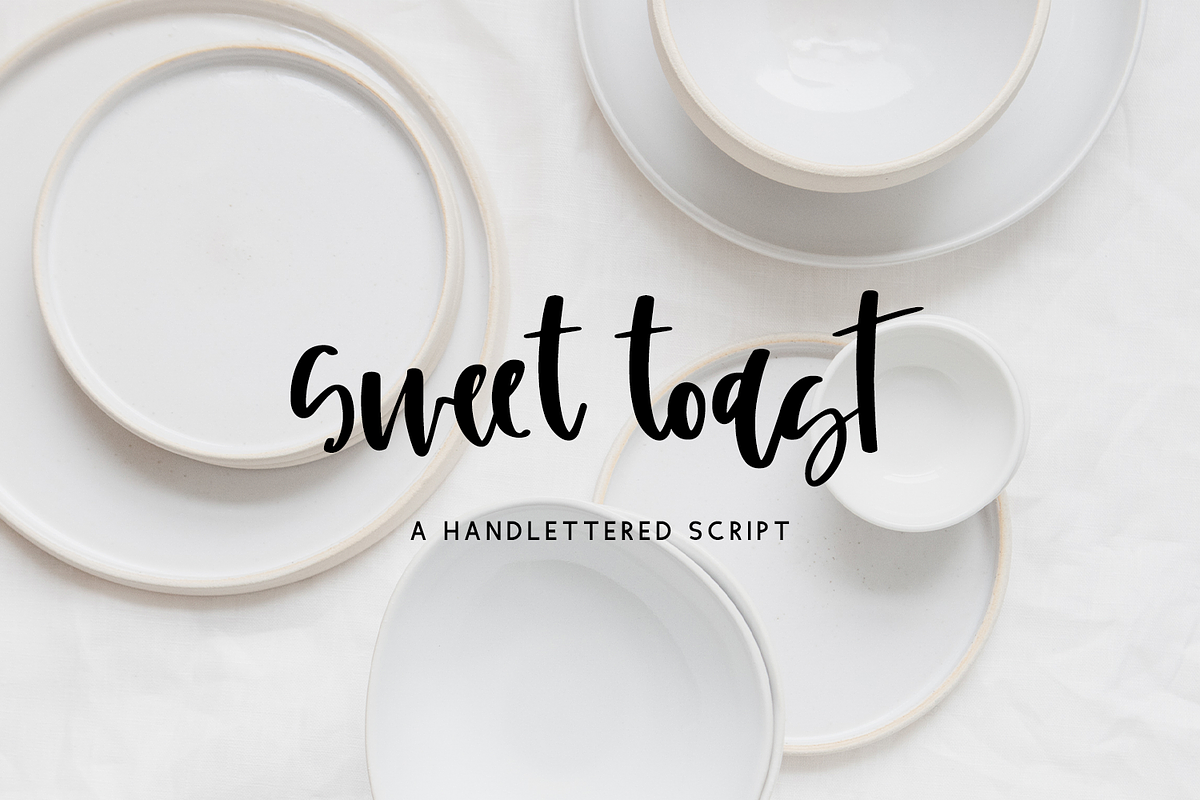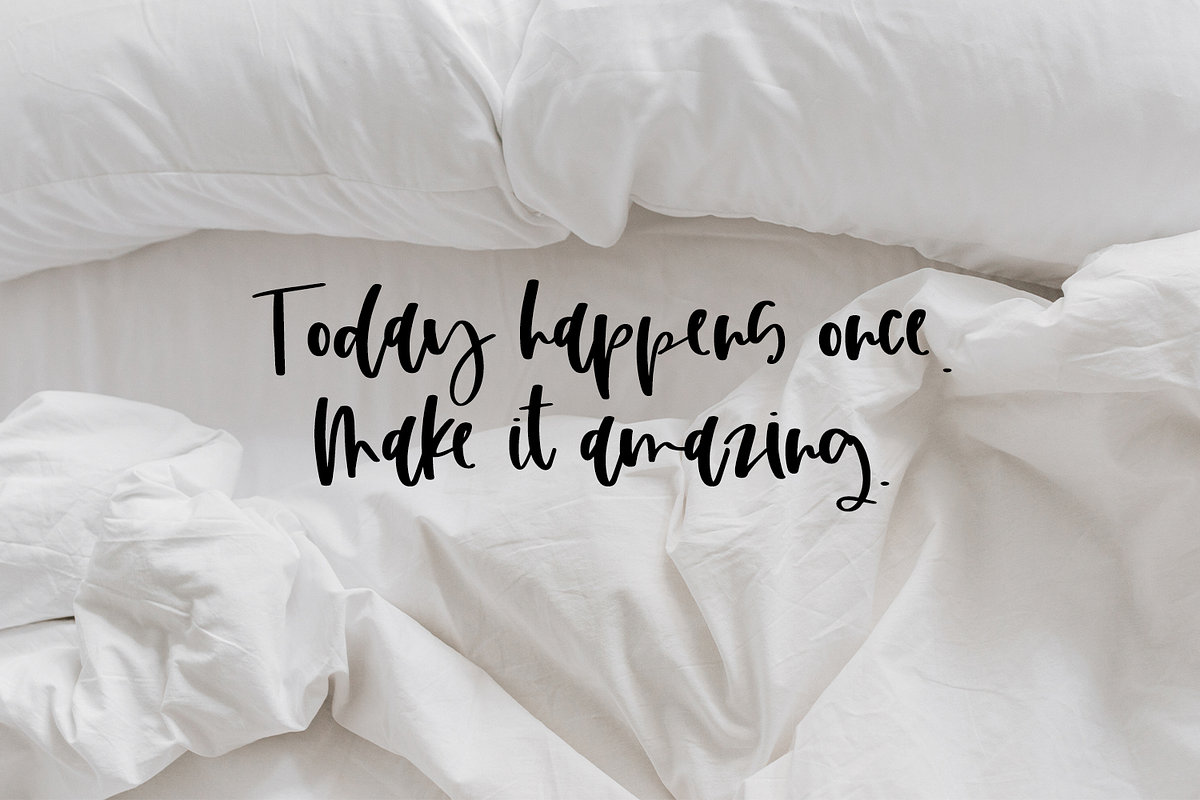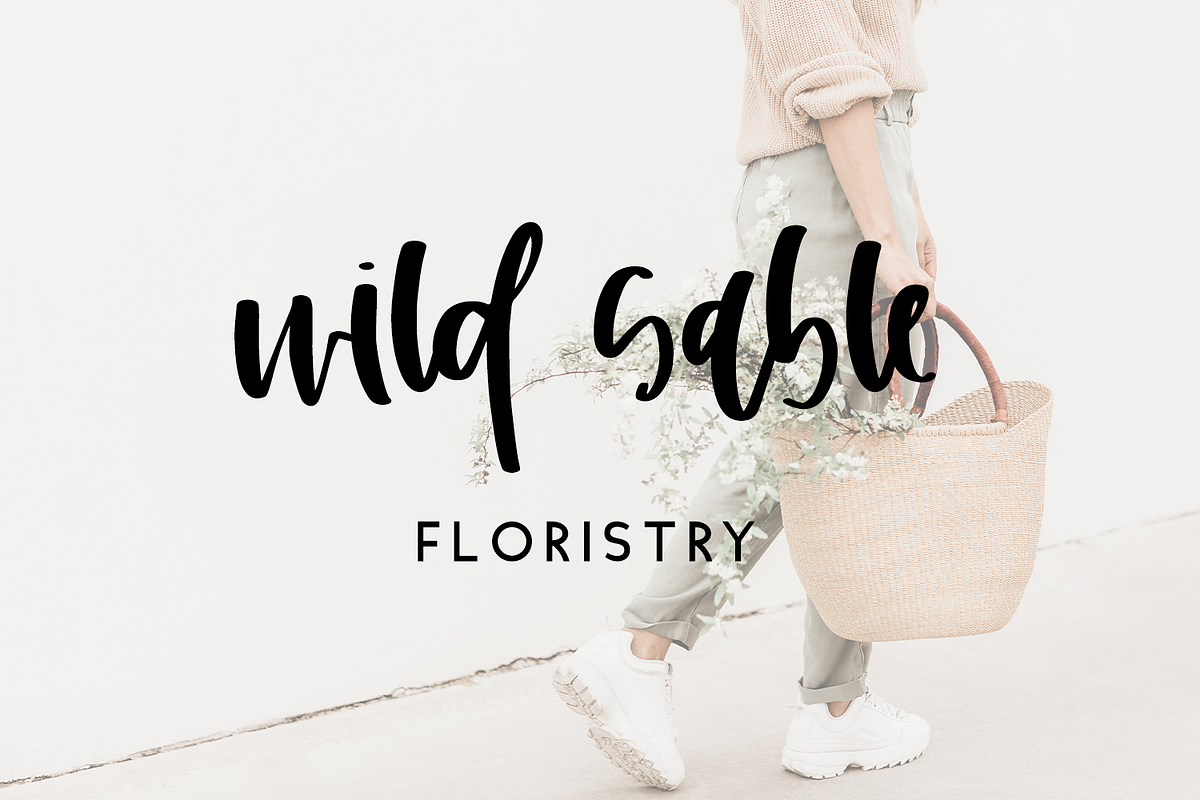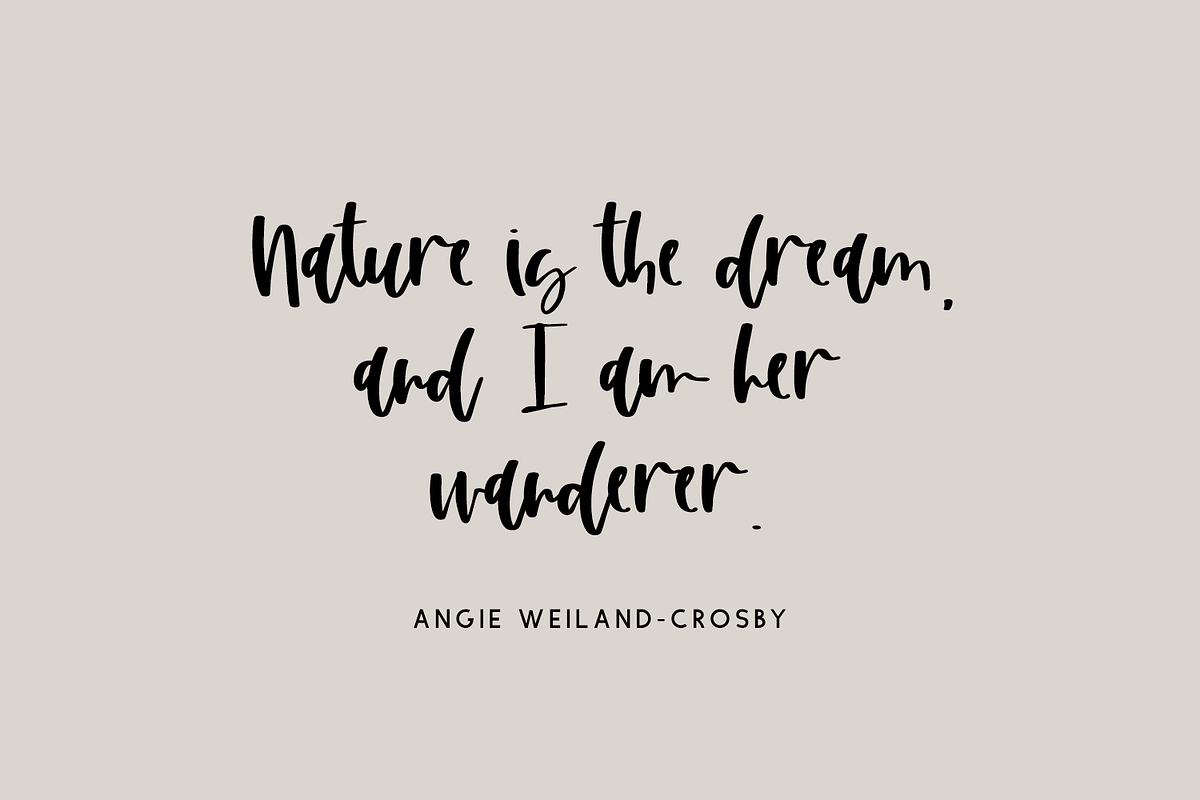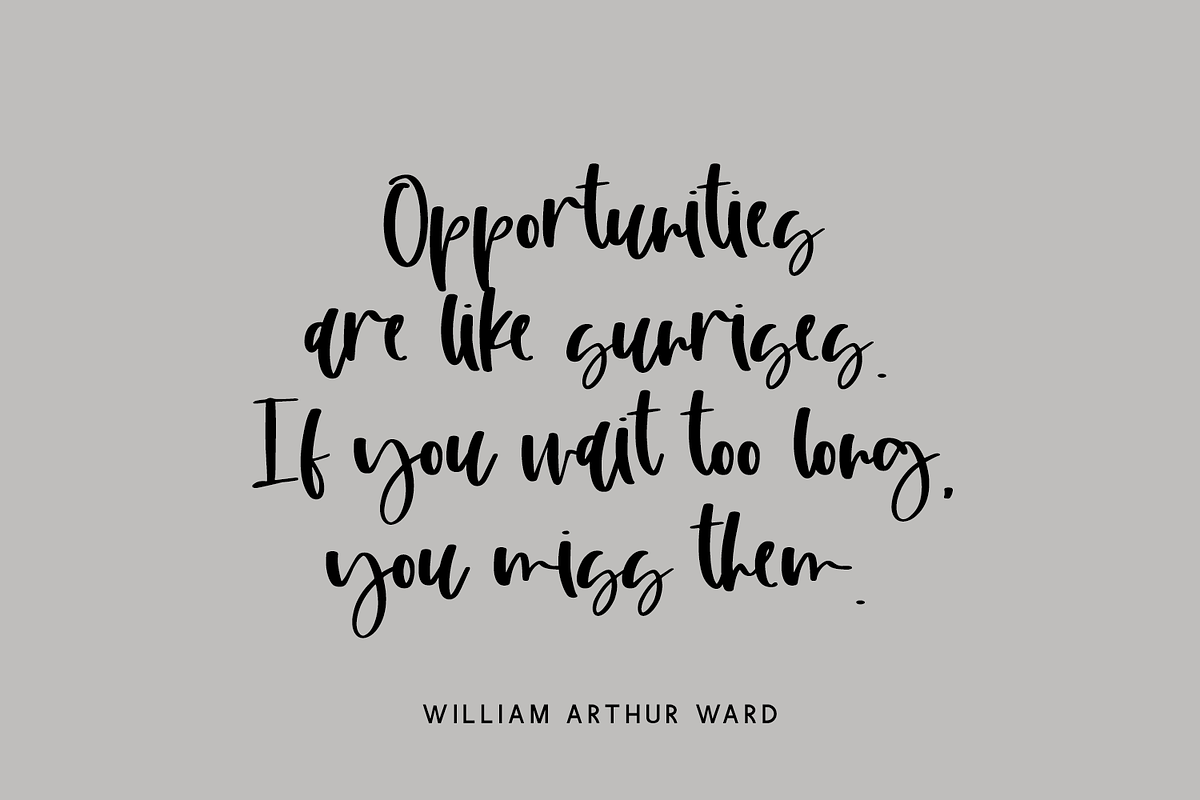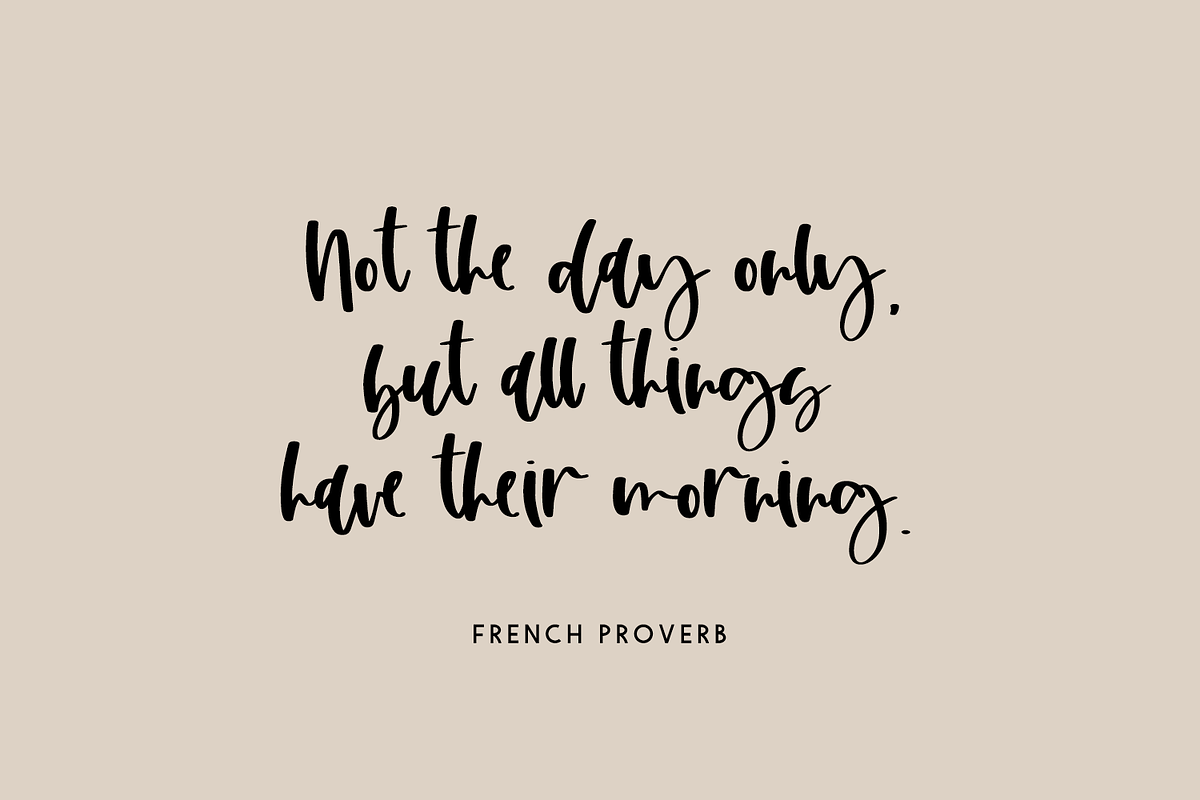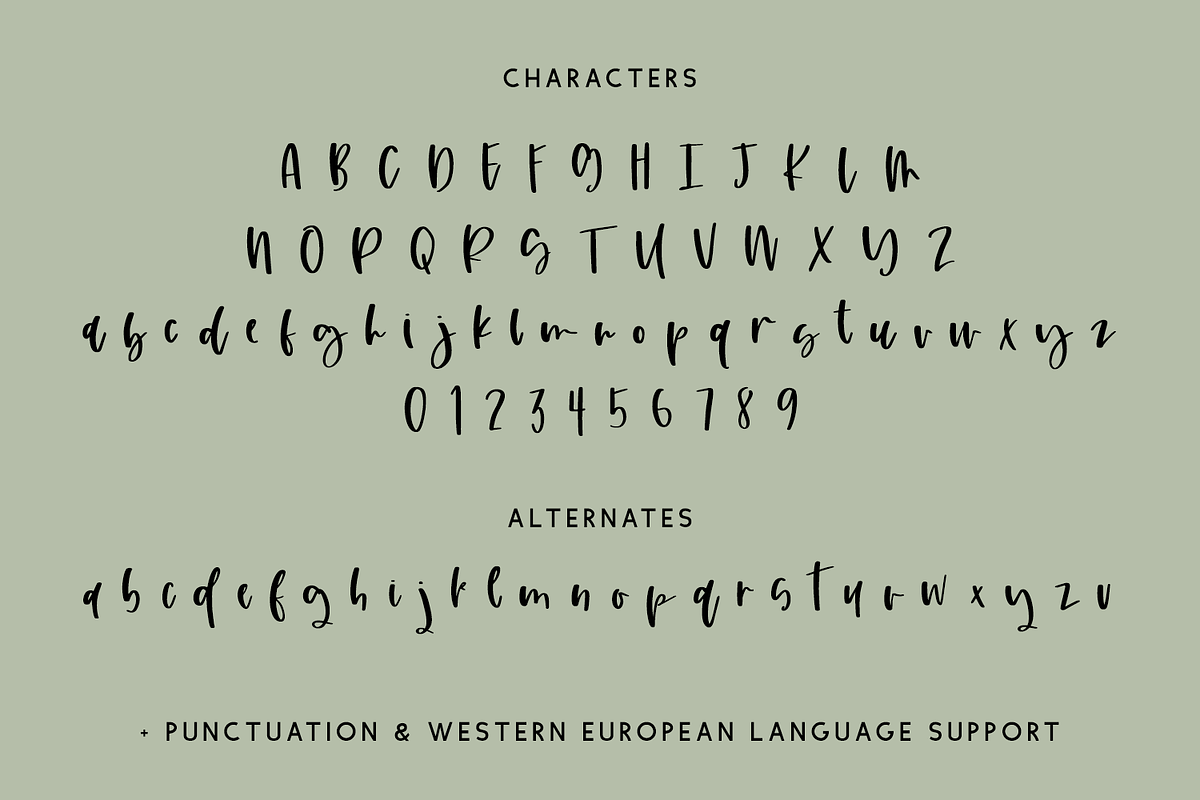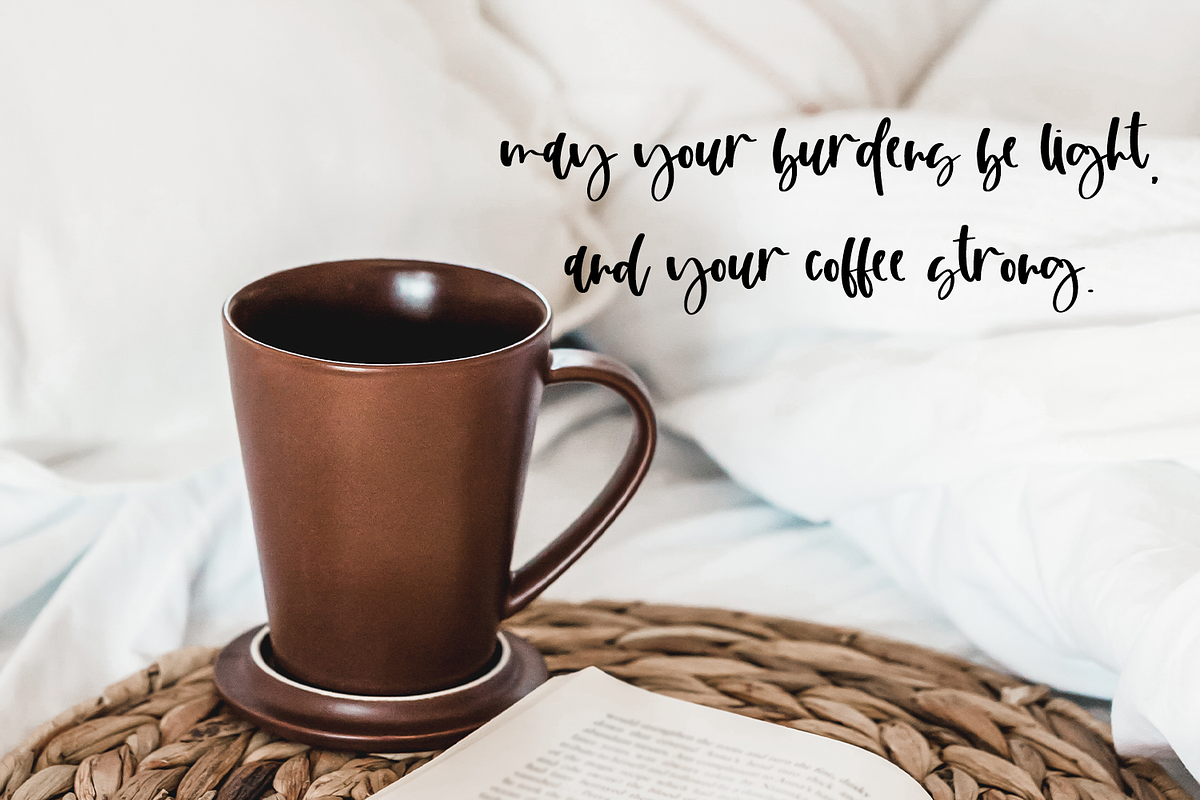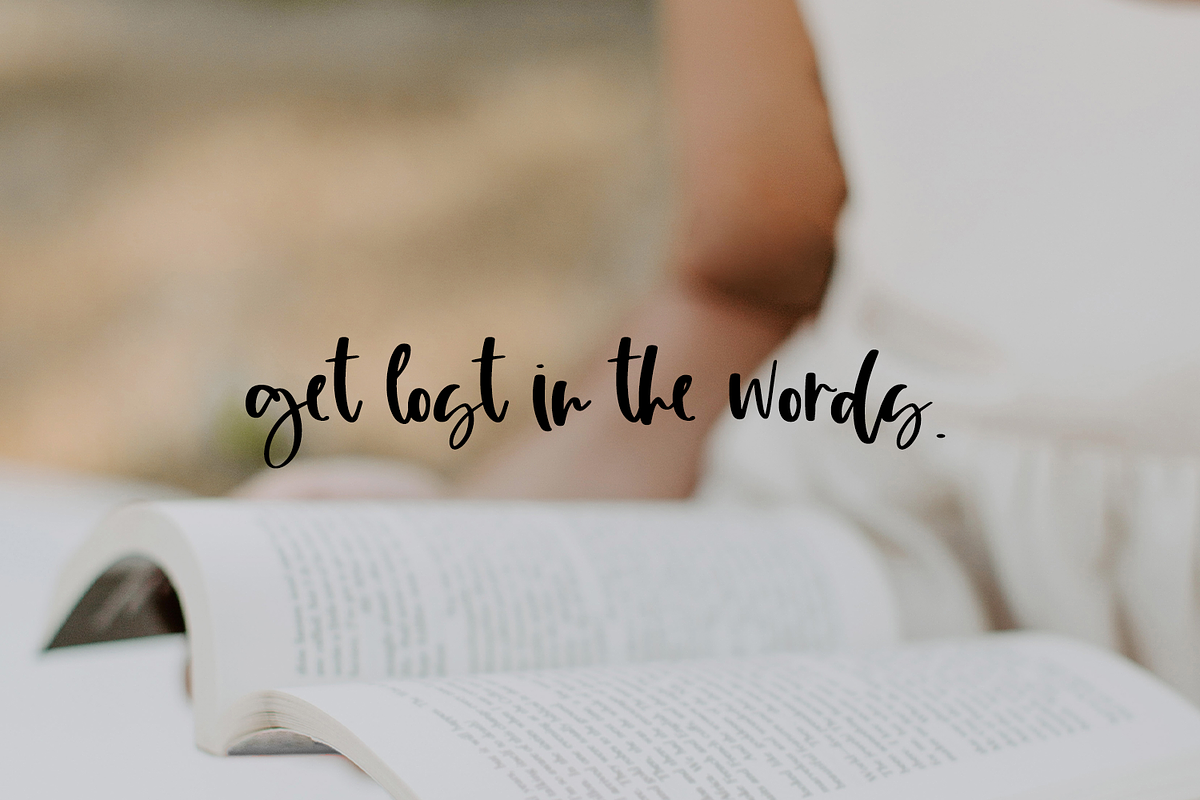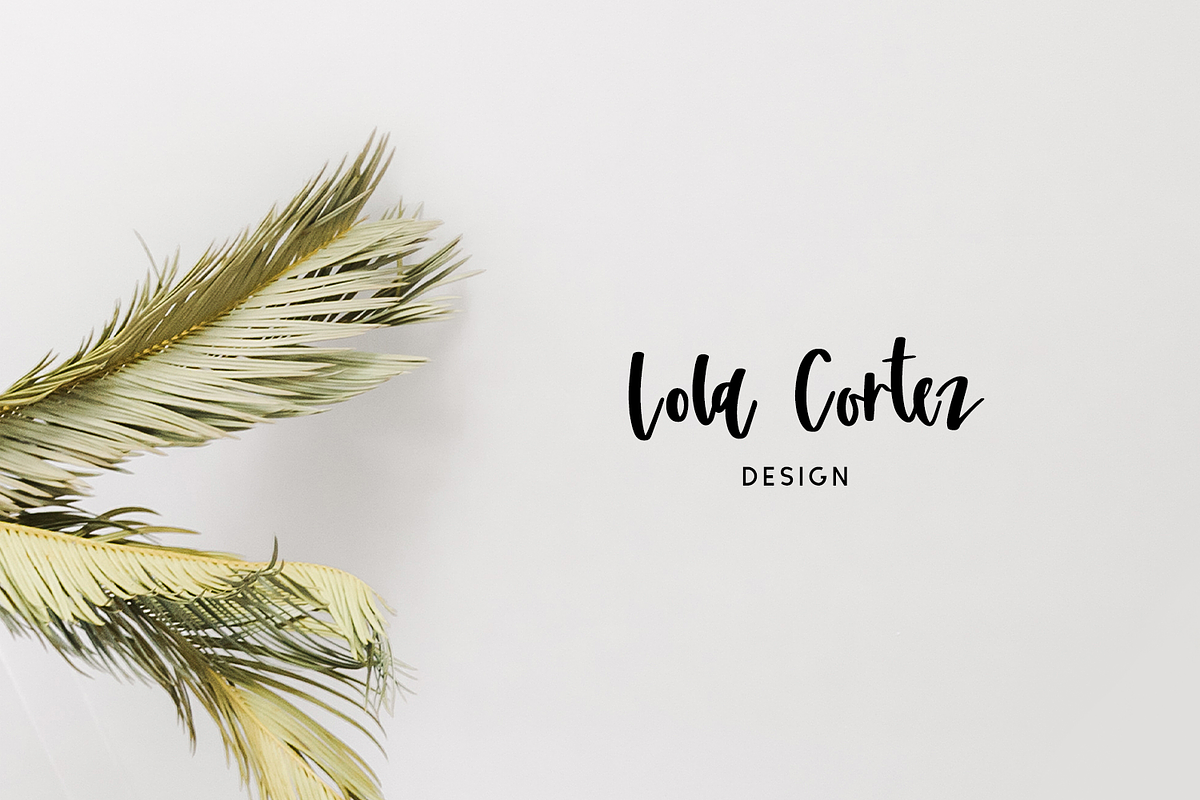
Sweet Toast
Introducing Sweet Toast Script, a playful handwritten font. Sweet Toast has clean edges for vinyl cutting, and a carefree style for a variety of projects.
Sweet Toast Script is best for:
- logos + branding
- crafting with your Cricut or Silhouette machine, as it features super smooth lines for an easy cut
- website design + website accents - think travel blogs, fashion blogs, & more
- clean print design, like magazines + flyers
- header elements that need handwritten touch
- quote graphics for social media
Sweet Toast includes:
- full upper + lowercase characters
- numbers + punctuation
- Western European Language Support
- 27 alternate characters